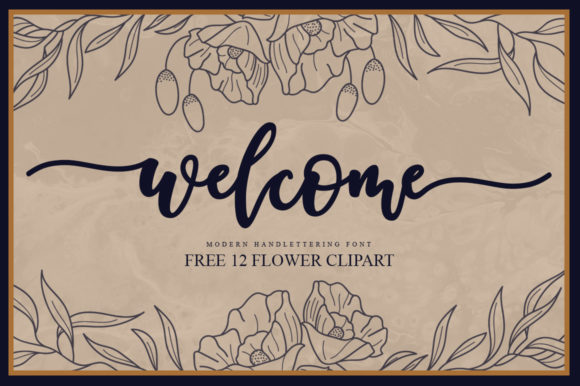
Looking for a font that is both sweet and charming? Look no further than Welcome Script Font! Created by the talented designers at Graphix Line Studio, this script font is full of authenticity and sure to capture your heart.
But that's not all - this stunning font set also includes a collection of beautiful flower clip arts, adding an extra layer of elegance and sophistication to your designs. Whether you're creating wedding invitations, thank-you notes, or any other project that requires a touch of romance, Welcome Script Font is the perfect choice.
With its flowing, graceful lines and unique character, Welcome Script Font is sure to make your work stand out from the crowd. Whether you're a graphic designer, web designer, or simply someone who loves beautiful typography, you won't want to miss out on this one-of-a-kind download.